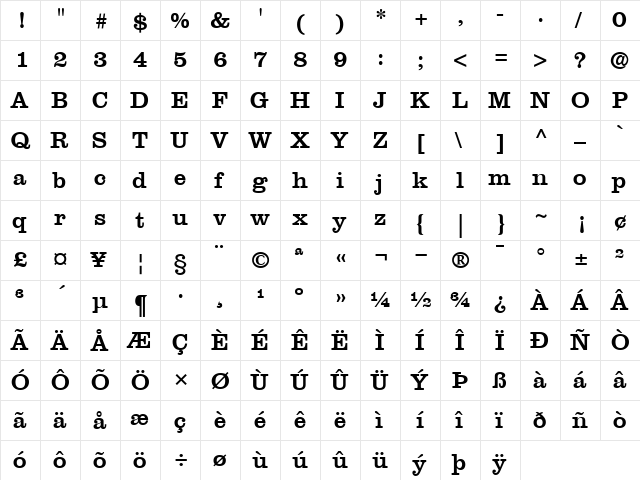
ClarendonRoman Roman
Design Context for ClarendonRoman Typeface
ClarendonRoman combines the readability of serif typography with the visual weight of a slab construction, resulting in a typeface that feels both authoritative and approachable.
Suited to magazines, political campaign materials, bold packaging, and any setting where authority matters.
Pro Tip: Use ClarendonRoman for headlines and subheadings where its slab serifs can make an impression. It also holds up well in mid-size body copy thanks to its sturdy construction.